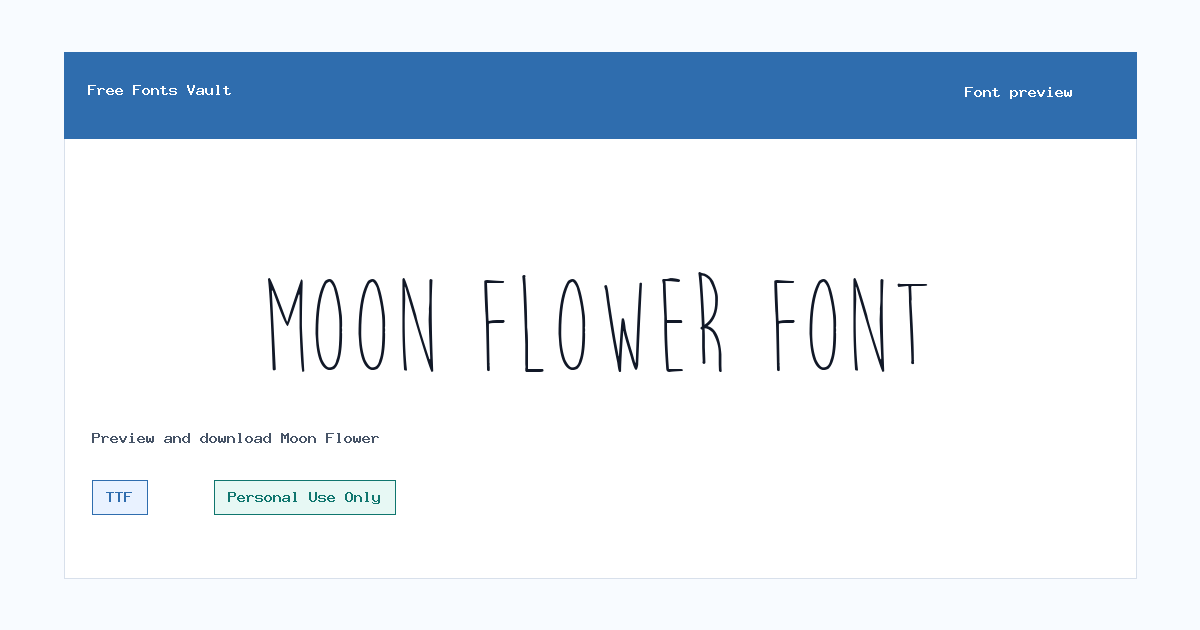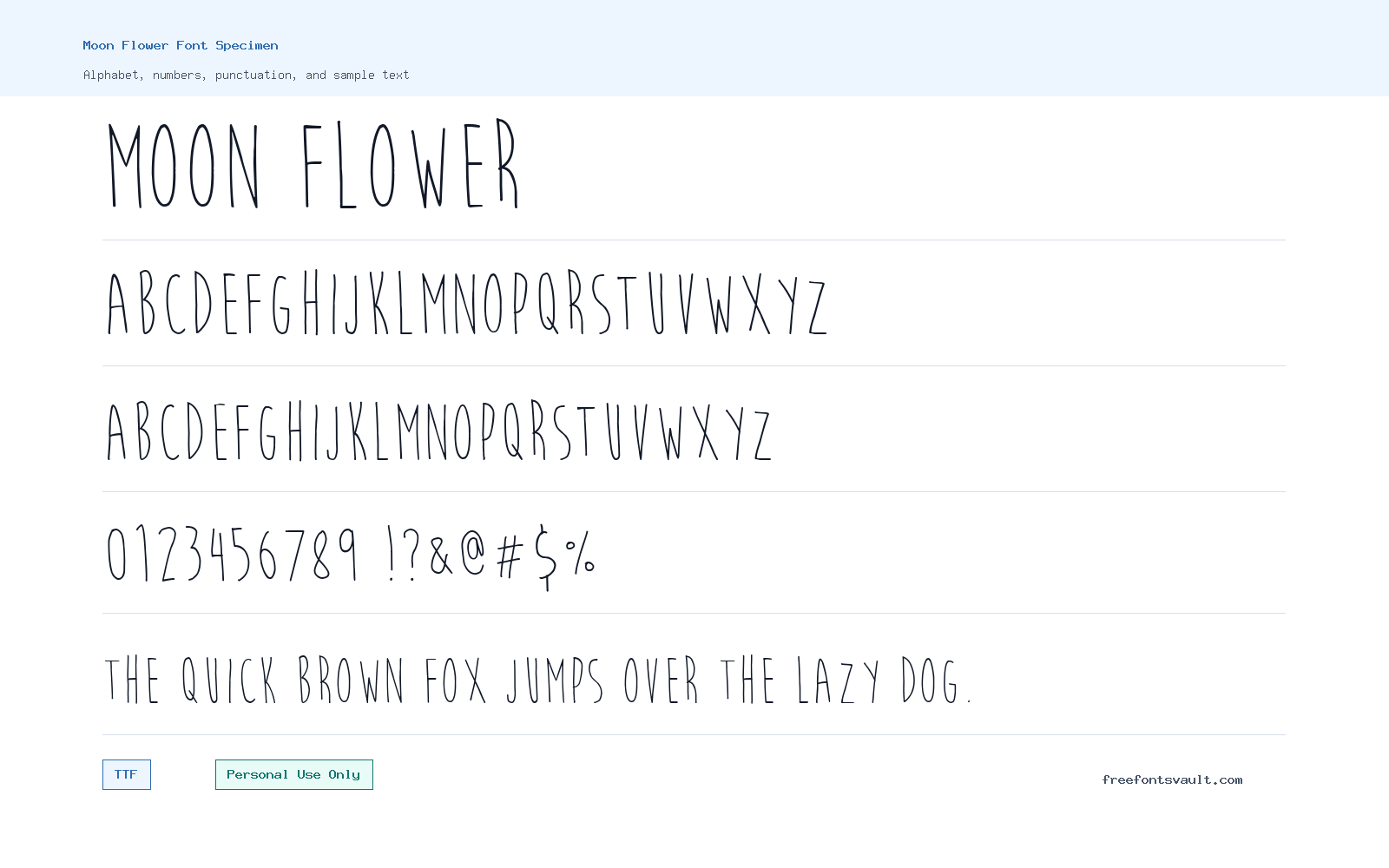
Moon Flower
- Designer Denise Bentulan
- Foundry Denise Bentulan
Moon Flower font.
Moon Flower is a light decorative font with a gentle handwritten feel, suited to short words, names, labels, and preview-friendly display text.
About Moon Flower
Moon Flower has a simple, airy look that works best when the text has room to breathe. Its style is more decorative than neutral, so it is a good choice for headings, small creative accents, invitations, quote graphics, and personal projects where you want a soft handmade touch.
- Decorative handwritten style for short display text
- Invitations, cards, and personal stationery
- Short headings, name designs, quote images, and labels
Try it at larger sizes and keep the text short. Pair it with a clean sans serif or simple serif for longer supporting text so the design stays readable. Moon Flower can work nicely when the design needs a light handmade accent without making the whole layout feel heavy. Test names, short quotes, greeting-card lines, and small label text separately, because thin decorative letters can become harder to read when the words are crowded. If your project uses an image background, increase contrast or place the text over a calm area of the image. Keep any important details, such as dates, prices, or instructions, in a clearer companion font. For a more polished result, avoid overloading it with too many effects. A small amount of letter spacing, a soft color palette, and plenty of blank space usually help this kind of gentle display font feel cleaner. Use the font as the accent, then let the supporting typography do the quiet work.
What kind of text works best with Moon Flower?
It works best for short display text such as names, headings, invitations, labels, and quote graphics.
For small social graphics, compare the preview at thumbnail size too, because thin decorative strokes can disappear faster than expected.